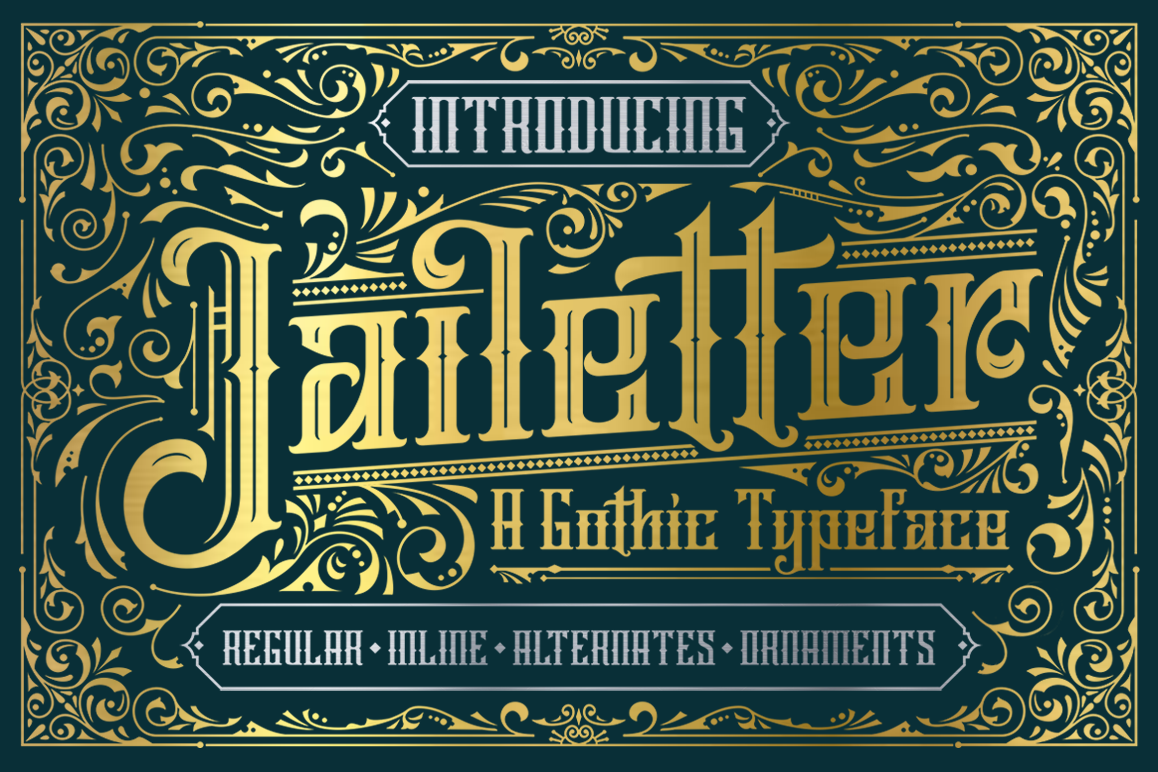
Jailetter Typeface
Jailetter is a font gothic is made by hand, inspired by classic labels. So much inspiration as you access it. All benefits you will feel when you start to create works with Jailetter fonts. What are you waiting for, the best price and best quality we give you with pride.Jailetter comes with a regular, inline and ornament. Complete with uppercase, lowercase, numerals, punctuations and so many variations of each character include Opentype alternates, ligatures and also additional swash to let you customise your designs. Perfect to use for Logotype, Letterhead, Poster, Apparel Design, Label and etc.Also supported PUA encoded. Simply copy and paste the alternate characters using the Character Map (Windows), Font Book (Mac) or a software program such as PopChar (for Windows and Mac).OPENTYPE FEATURES
• Swash
• Standard Ligatures
• Contextual Alternates
• All Alternates